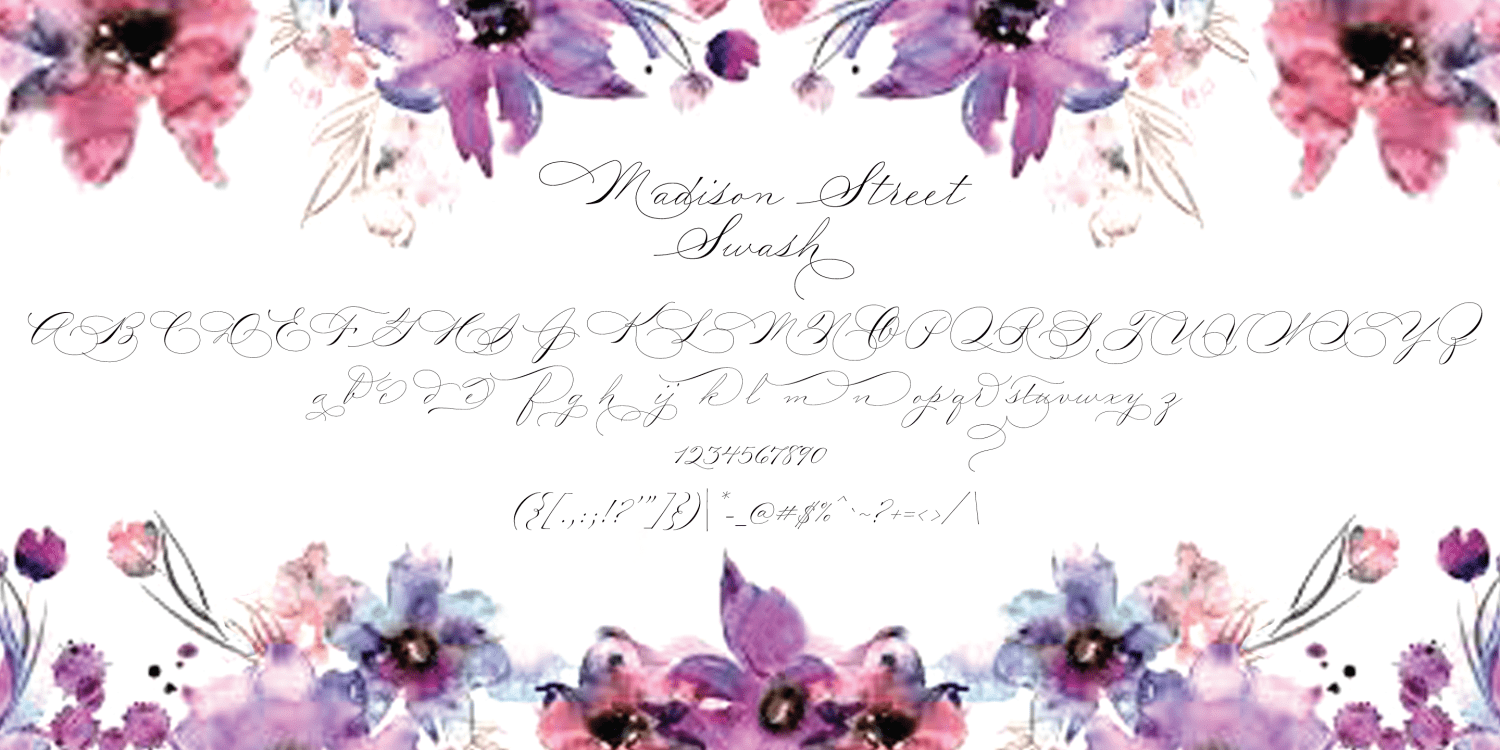
Madison Street Regular + Swash
Font Family by Studioways
Madison Street Regular and Swash are toned-down versions of Madison Street Pro, with fewer bells and whistles. These two fonts are designed to allow you to manually create some of the beauty of the Pro version. In each font, there is a limited number of ligatures, and a few lowercase alternates that are used when those letters are doubled. In Madison Street Swash, we've replaced much of the lowercase with swash forms. Because some of those are ending forms, the Swash font is
Both Madison Street Regular and Swash support an extended European character set.